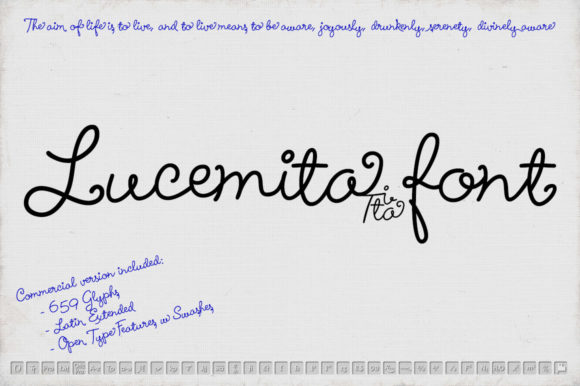
Why Lucemita Script Feels Like a Handwritten Hug for Your Designs
You know that feeling when a design just clicks? It’s not always about the perfect photo or the slickest layout. Often, it’s the typography that gives a project its soul. That’s exactly where Lucemita Script comes in. This isn’t just another script font; it’s a typeface with genuine warmth, drawn by hand with a fine marker before being carefully digitized. The result is a premium font that carries the subtle imperfections and flowing energy of real pen strokes, making it instantly relatable and eye-catching.
The Personality Behind the Pen Strokes
What makes Lucemita Script stand out in a sea of creative fonts is its balanced, light-hearted character. It avoids the overly formal look of some calligraphic scripts and the childish feel of others. Instead, it strikes a beautiful middle ground—approachable, friendly, and undeniably human. The letterforms have a natural bounce and connection, creating a sense of movement that guides the eye. This handwritten font feels personal, as if it were jotted down just for you, which is a powerful tool for building connection.
Its versatility is a key strength. While it’s a display font at heart, designed to grab attention, its clear letterforms ensure it remains legible in shorter blocks of text. Think of it as the charismatic friend who can command a room but also have a quiet, meaningful conversation. This makes it a fantastic choice for projects where you need both impact and a touch of intimacy.
Where Lucemita Script Truly Shines
So, where should you use this charming typeface? The applications are broader than you might first think. It’s a natural fit for logo design, especially for brands in lifestyle, wellness, artisan food, boutique retail, or creative services. A logo set in Lucemita Script immediately communicates approachability and craftsmanship. It tells customers there’s a real person or a passionate team behind the brand.
Beyond logos, it’s a powerhouse for marketing and editorial design. Use it for eye-catching headlines on posters, flyers, and social media graphics where you want to stop the scroll. Its flair makes it perfect for invitations, greeting cards, and event promotions. In packaging design, it can add a gourmet, handmade touch to labels for everything from coffee beans to cosmetics. For publishing, consider it for book covers, chapter titles, or pull quotes that need to stand out on the page.
Don’t overlook its digital potential. While you wouldn’t set an entire blog post in any script, Lucemita Script works beautifully for web design elements like hero section headlines, button text for calls-to-action, or decorative quotes. It’s a fantastic design asset for creating cohesive social media graphics that have a consistent, recognizable voice across platforms.
Making Smart Choices: Pairing and Practicality
Using a expressive font like Lucemita Script effectively is about context and contrast. One of the most important skills in modern typography is font pairing. To let Lucemita shine, pair it with a clean, simple sans serif font or a sturdy serif font. The contrast creates a clear visual hierarchy, where the script handles the emotional, high-impact moments and the supporting typeface manages the readable body copy. This pairing ensures your message is both beautiful and clear.
Before you commit, always test the font in your specific context. How does it look at the size you’ll use it? Does the spacing (kerning) feel right? Does its personality align with your brand identity? A font that works perfectly for a bakery’s logo might not be the right fit for a law firm’s website. Its influence on brand perception is significant—it can make a brand feel more human, creative, and trustworthy.
Ultimately, Lucemita Script is more than just a typeface; it’s a design tool for adding a genuine, human touch. It helps projects stand out not by shouting, but by connecting. By understanding its personality and applying it thoughtfully, you can leverage this handwritten font to create work that feels both professional and deeply personal, resonating with your audience on a different level.